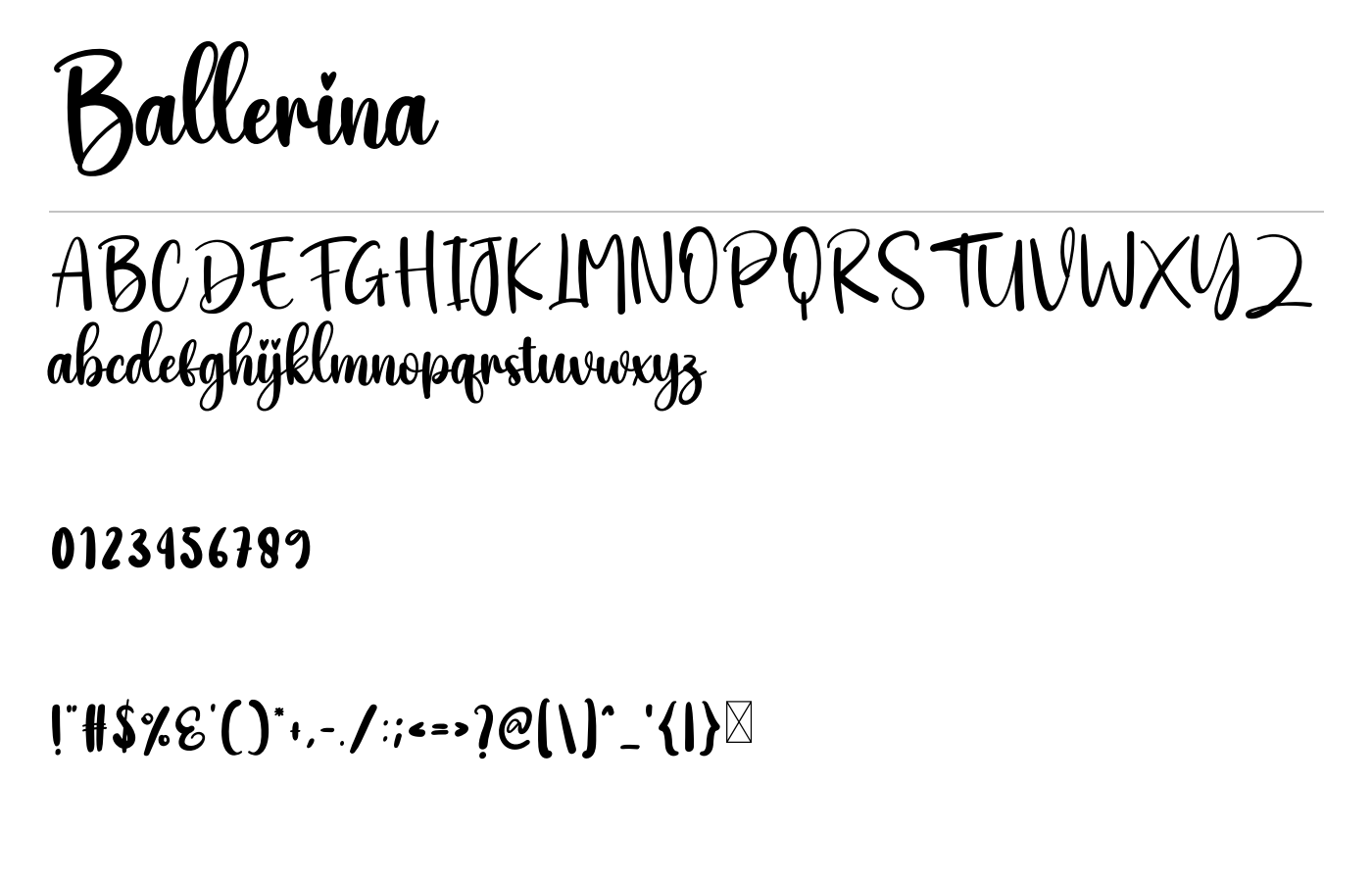
Ballerina is a playful and elegant handwritten script font with a bold weight and tall, narrow letterforms that create a lively and stylish feel. Its smooth, flowing strokes and whimsical details, like the heart-shaped dot on the "i," make it perfect for branding, invitations, and creative headlines where personality and charm are key. This font shines best in designs seeking a friendly yet refined touch, especially in fashion, beauty, and lifestyle projects.
Ballerina Font
About Ballerina Font